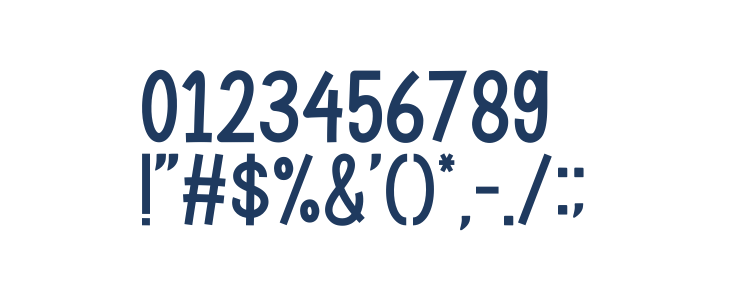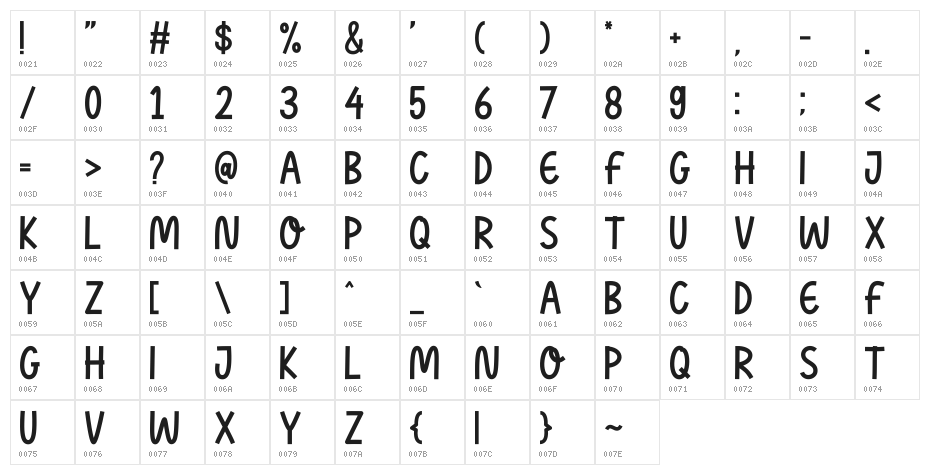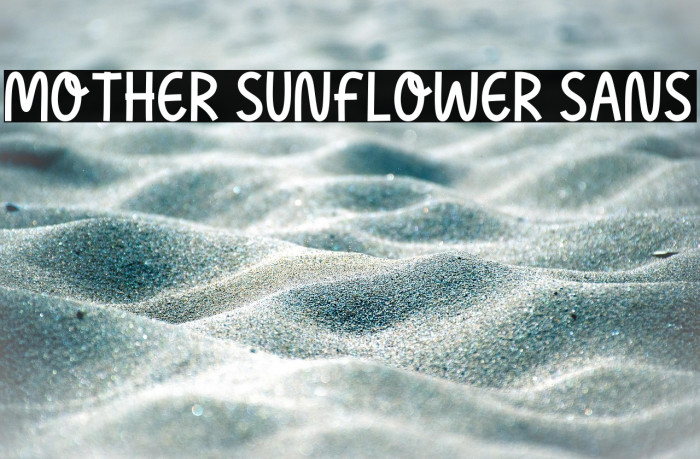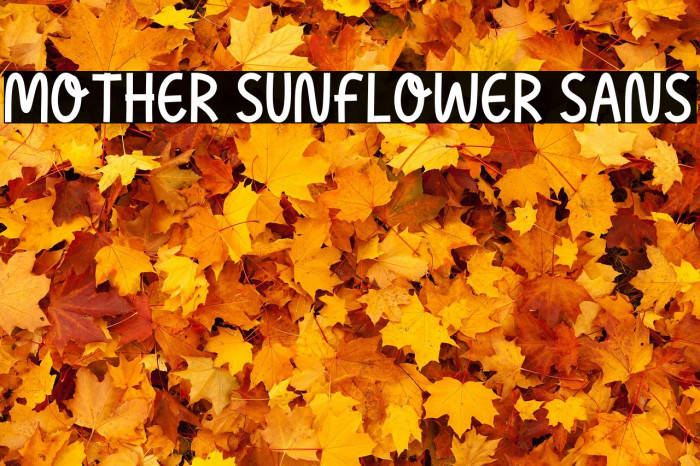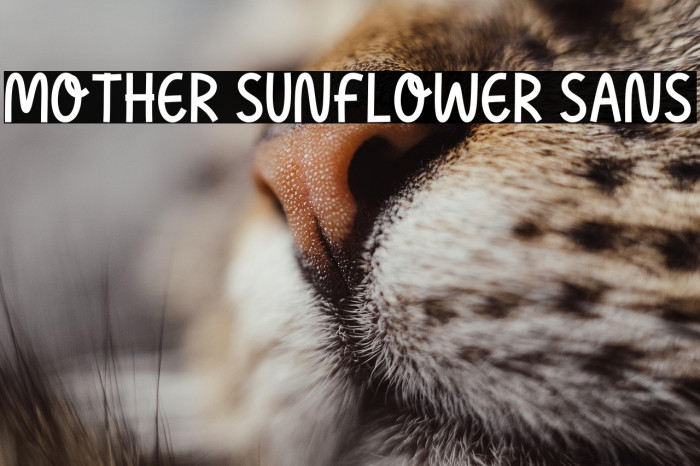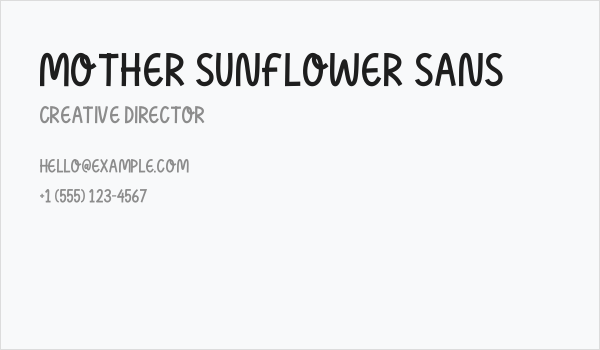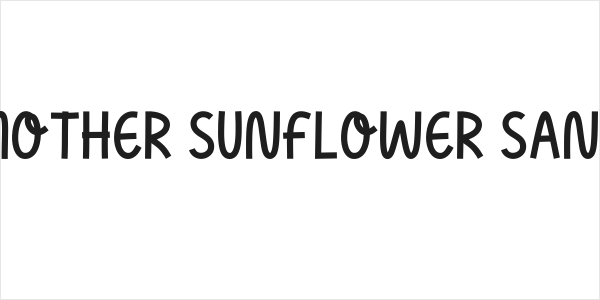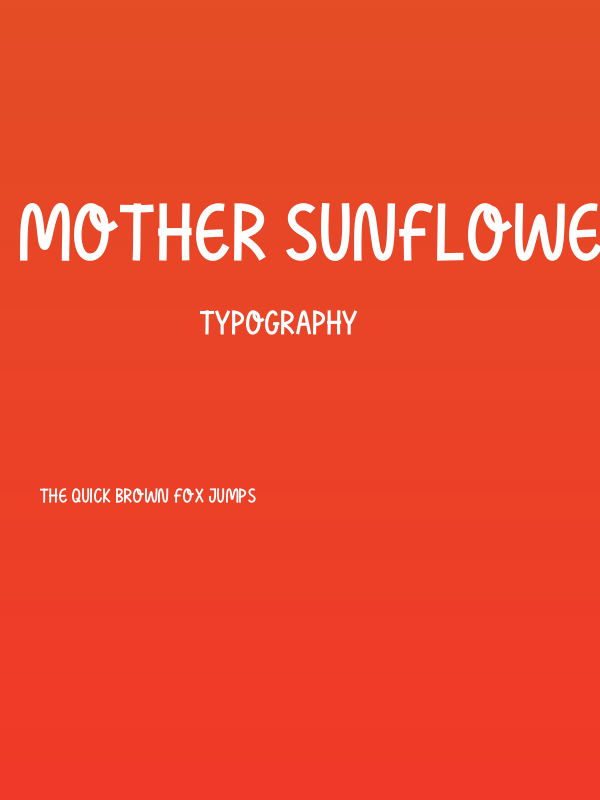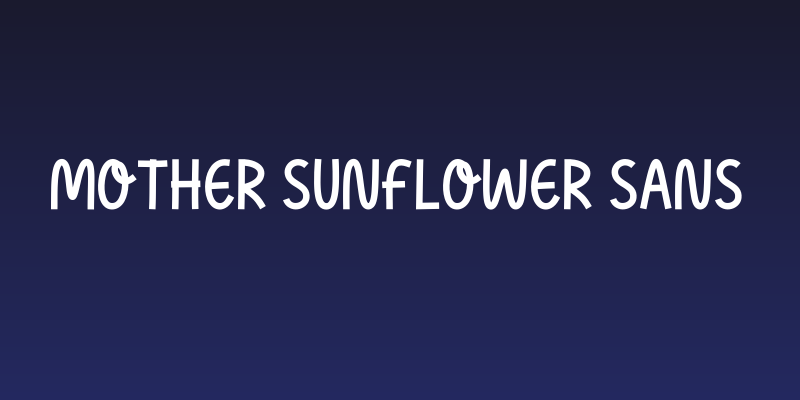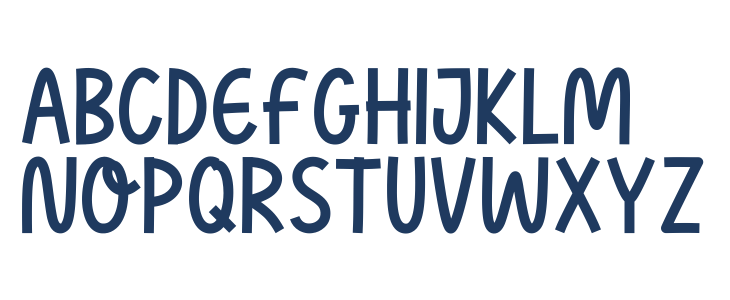
Mother Sunflower Sans Font
Mother Sunflower Sans Description
This font features a playful and bold design, characterized by its rounded and slightly irregular letterforms. The uppercase and lowercase letters maintain a consistent style, with a friendly and approachable appearance. The numbers and special characters are designed to match the overall aesthetic, ensuring a cohesive look across all text elements. The strokes are uniform in thickness, contributing to a clean and modern feel. This font is versatile, suitable for a variety of creative projects where a casual yet impactful typeface is desired.
| Overall Style | Playful, Modern |
| Proposed Projects | Ideal for children's books, playful branding, casual invitations, and creative posters. |